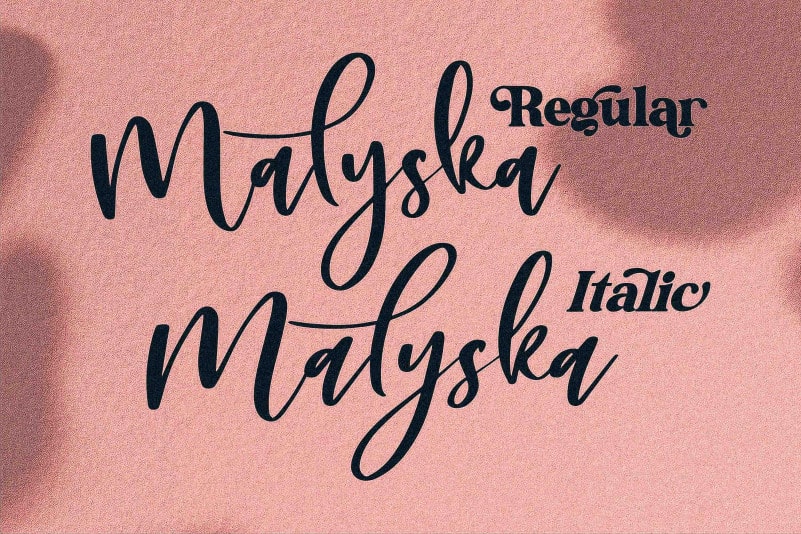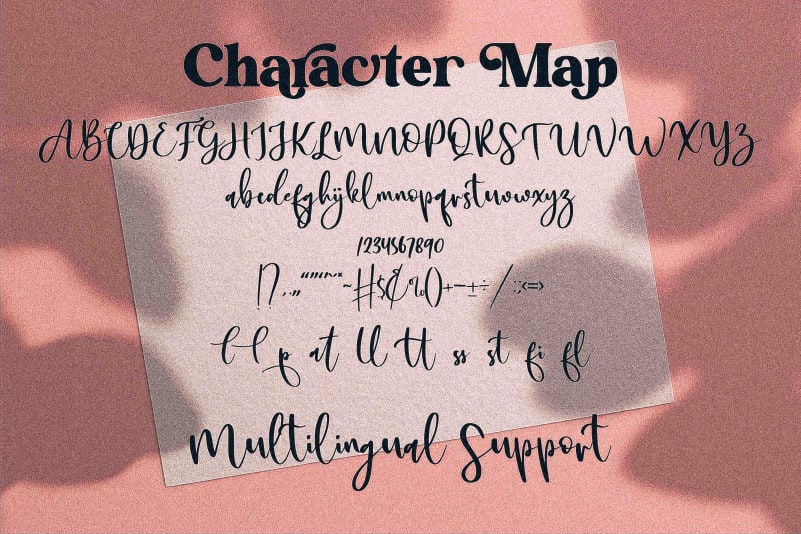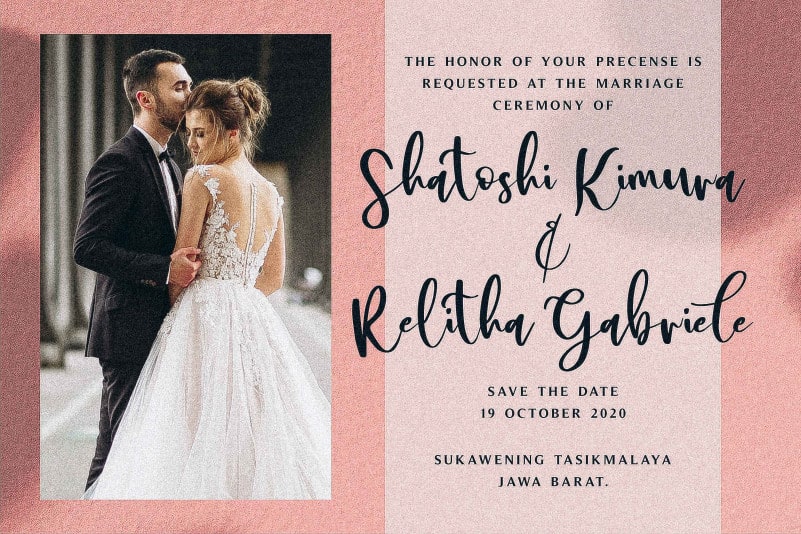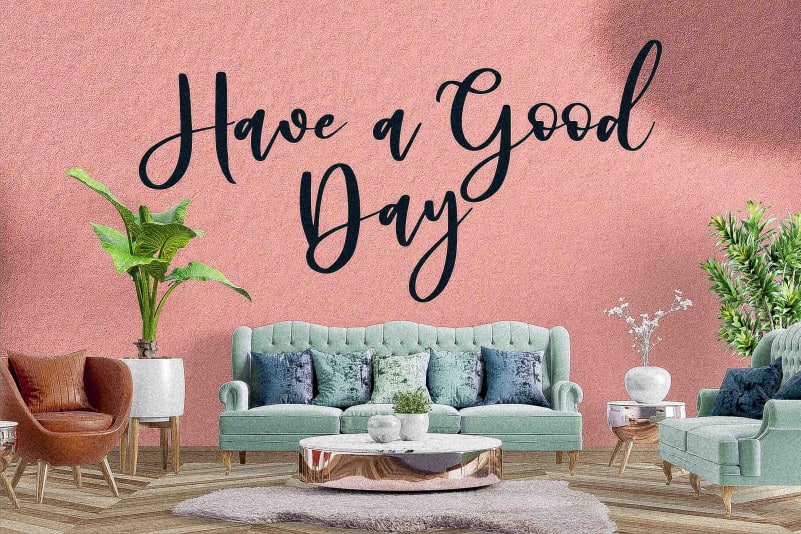
Malyska Calligraphy Font
Malyska Calligraphy Font is a romantic and sweet calligraphy typeface with characters that dance along the baseline. It has a casual, yet elegant touch. It can be used for various purposes such as logos, wedding invitations, headings, t-shirts, letterhead, signage, labels, news, posters, badges and so much more.